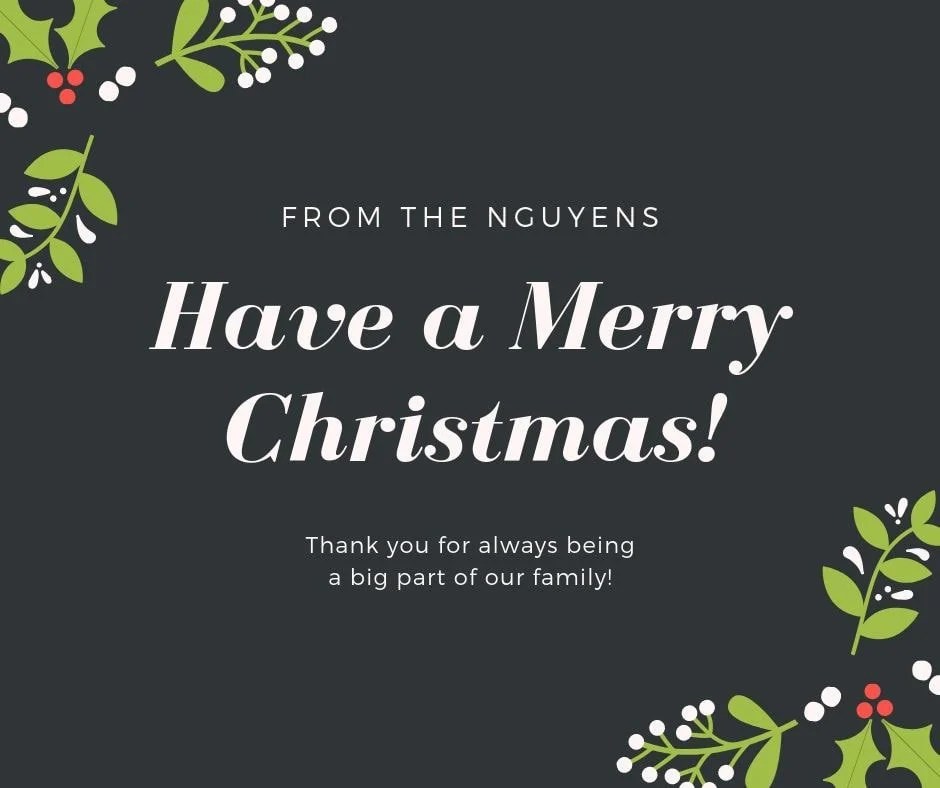
Holiday Fonts On Canva. Web best free christmas fonts combinations for your designs ( in canva ) 1.limelight & tenor sans. Web 50 free christmas fonts to give your designs a holiday twist.
Art deco meets the modern age with this bold and stylish font combination. Daydream is all you need for christmas! A magnificent and stylish font that was designed by alice whales. The swirls and swoops found in the letters gives off a lot of. As the name suggests, brusher is. Web christmas fonts on canva 1. The candy cane font resembles the candy sticks that are common treats during the christmas season. Web 50 free christmas fonts to give your designs a holiday twist. Use it for free in canva. Web 12 canva christmas fonts 1.
Use it for free in canva. Web 10 refreshing holiday fonts on canva brittany. Web best free christmas fonts combinations for your designs ( in canva ) 1.limelight & tenor sans. Web 50 free christmas fonts to give your designs a holiday twist. Daydream is all you need for christmas! As the name suggests, brusher is. A magnificent and stylish font that was designed by alice whales. One starry night is a fun and. Web 12 canva christmas fonts 1. Use it for free in canva. The swirls and swoops found in the letters gives off a lot of.